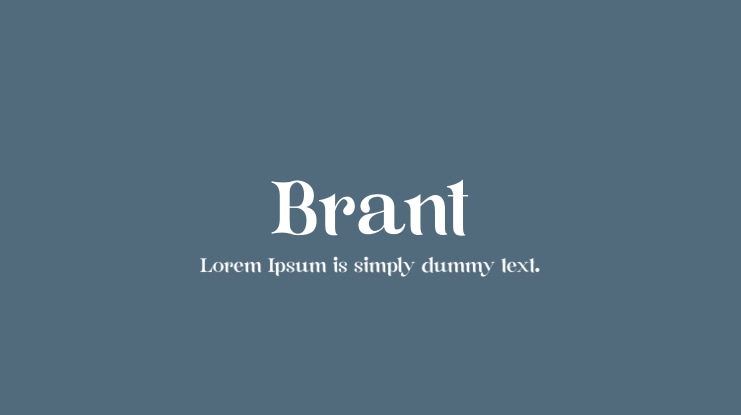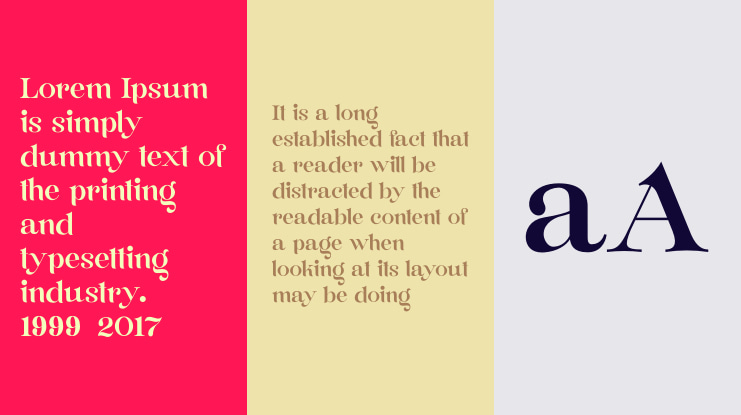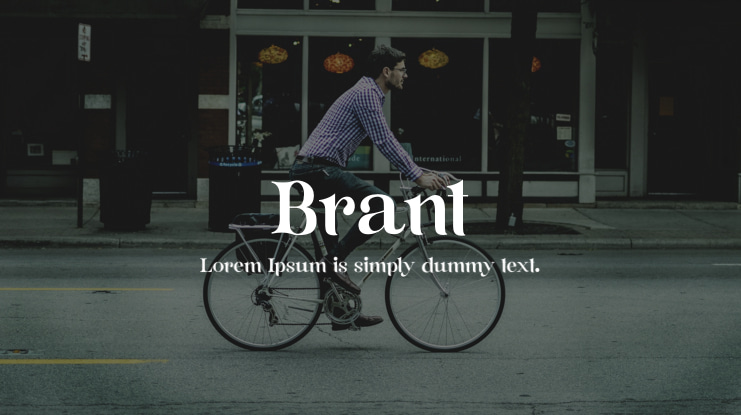
Brant Font
Wahyu Setiya Rahmawan
Introducing BRANT – the free, modern and classic serif typeface with a truly special appeal. Whether you’re creating a logo, poster, t-shirt or something else – this freebie download is sure to make your brand stand out with its playful Ligature & Alternate font set. Get your hands on this amazing typeface now to instantly upgrade your designs!
- 5 Weights
- Basic Latin A-Z and a-z
- Numerals & Punctuation
- Stylistic Ligatures and Alternate glyps
- Multilingual Support for ä ö ü Ä Ö Ü …